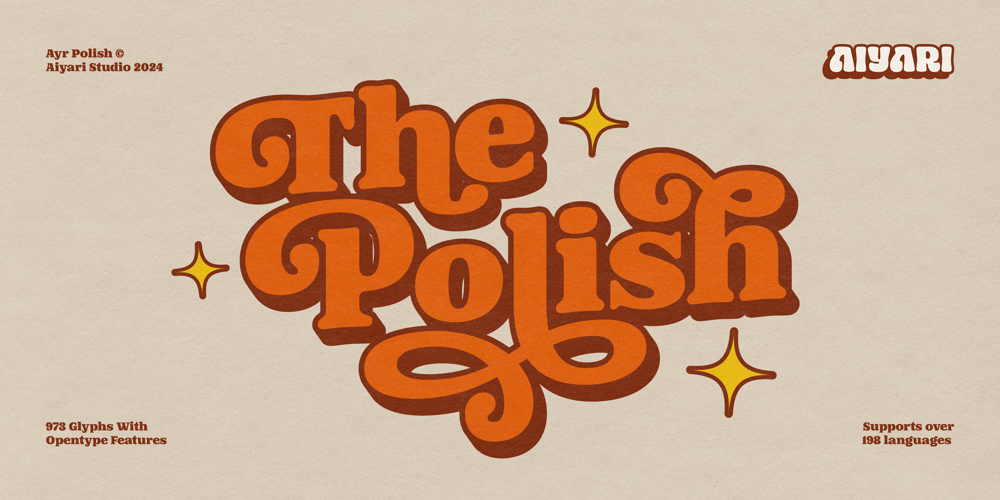
Ayr Polish
Ayr Polish font
Ayr Polish Font Family was designed by Ricky Rinaldi and published by Aiyari. Ayr Polish contains 1 styles and family package options. Ayr Polish is a retro-inspired, rounded old-style serif typeface, evolving from the beloved Beardy font. Merging the playful spirit of 60s-70s pop culture with elegant flourishes. The typeface includes opentype features from ligatures and stylistic alternates (Ss01 – Ss15).Polish best uses for headings, invitation, Logo type, quotes, apparel design, flyer, poster, greeting cards, product packaging, book cover, printed quotes, cover album, movie, etc